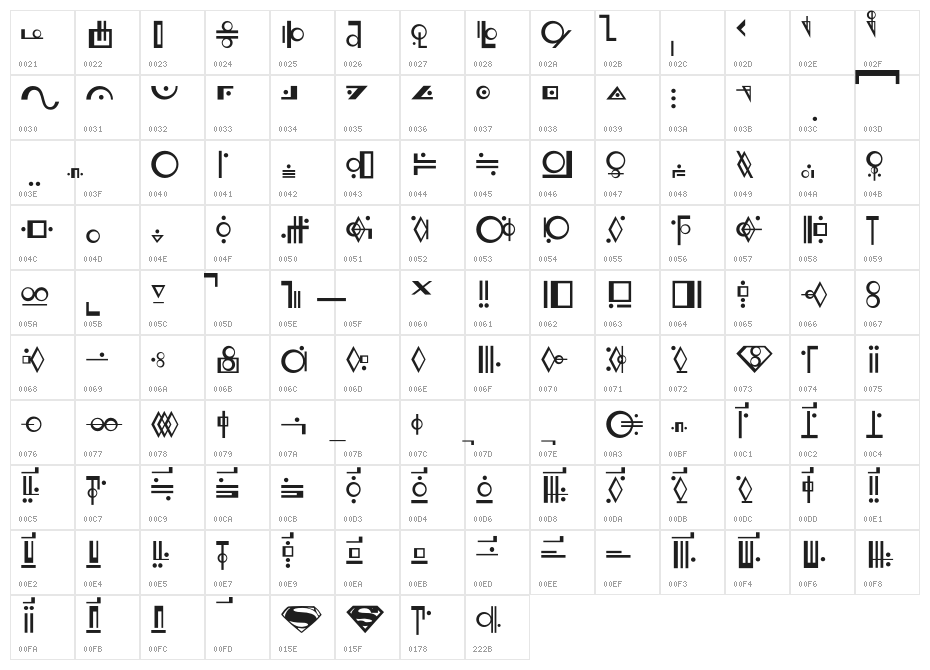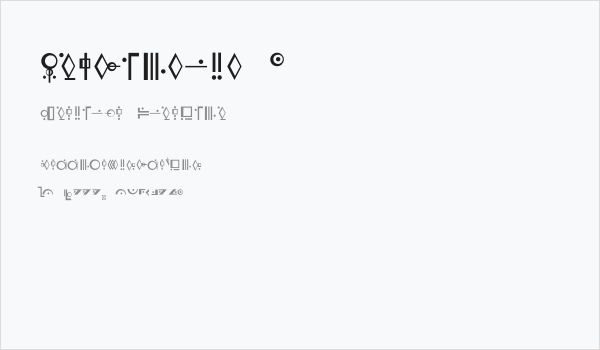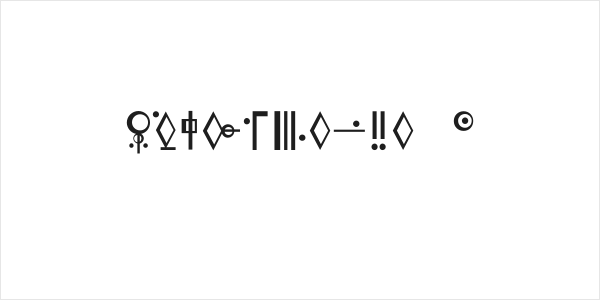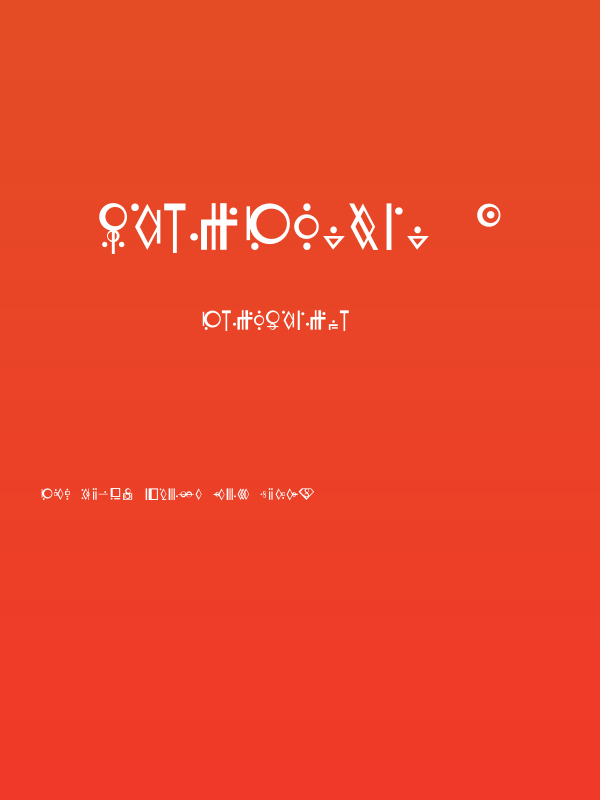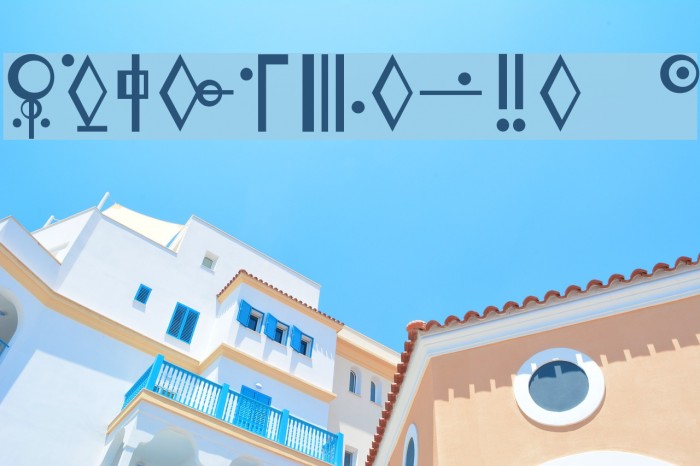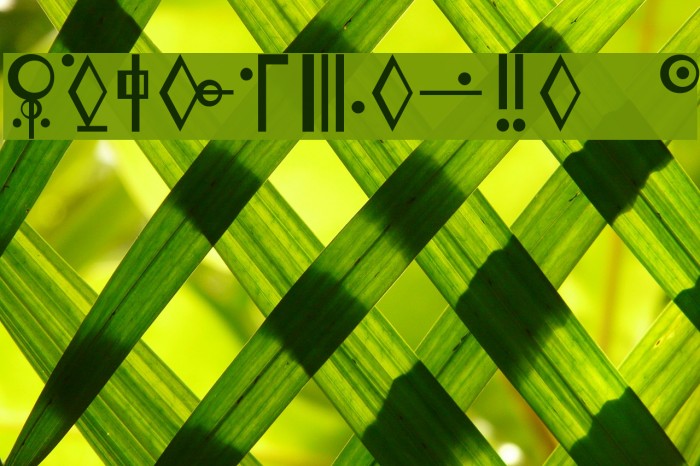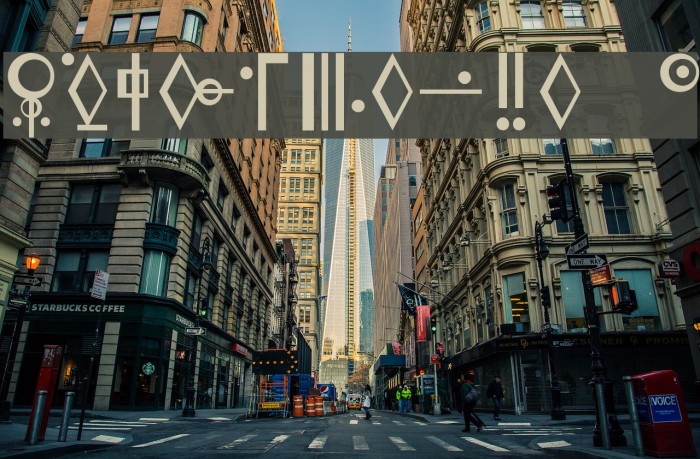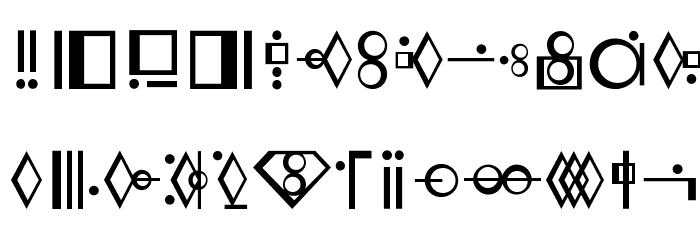
Kryptonian 7 Font
Kryptonian 7 Description
This font features a highly stylized and abstract design, reminiscent of alien or futuristic scripts. It incorporates geometric shapes such as circles, triangles, and lines, creating a sense of mystery and otherworldliness. The characters are composed of bold strokes with varying thickness, often intersecting or connected by dots, giving it a unique and cryptic appearance. The overall aesthetic is both modern and decorative, suitable for creative and unconventional projects.
Man of Steel
| Overall Style | Futuristic, Decorative |
| Use Case | Logos, Posters, Titles |
| Proposed Projects | Ideal for sci-fi themed designs, video game interfaces, movie posters, or any project requiring a mysterious and futuristic look. |